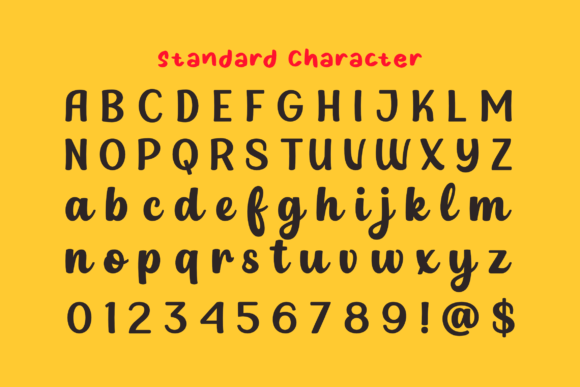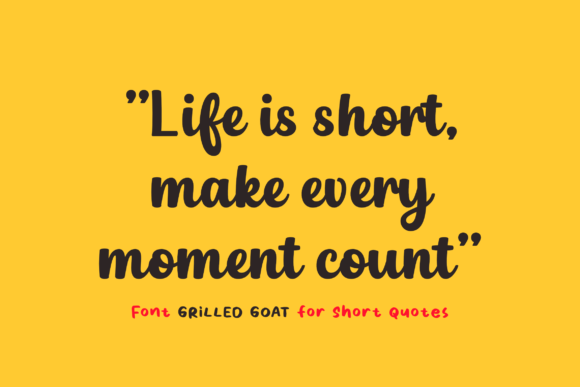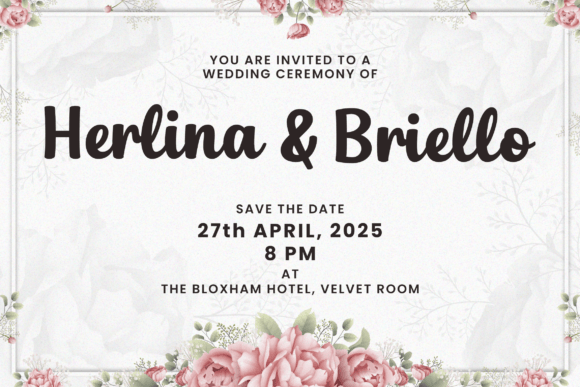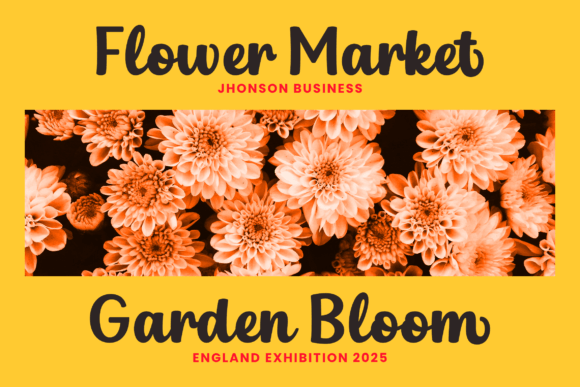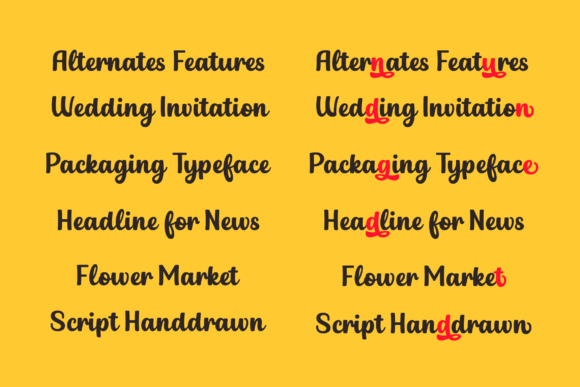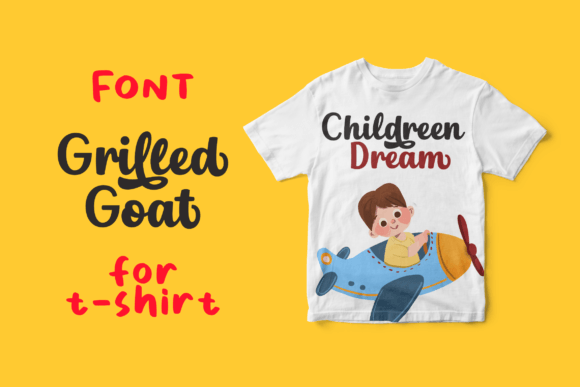
Introducing Grilled Goat: The Ultimate Script Font for Elegant Designs
In the world of typography, few fonts manage to capture the essence of charm and elegance as effortlessly as Grilled Goat. This stunning script font is a modern homage to the timeless art of classical calligraphy, offering a sophisticated and refined aesthetic that elevates any design project to new heights. Whether you’re a designer, crafter, or simply someone who appreciates the beauty of fine typography, Grilled Goat is sure to captivate and inspire.
The Art of Classical Calligraphy Reimagined
Grilled Goat is more than just a font – it’s a masterful blend of traditional calligraphy and modern design sensibilities. With its flowing lines, intricate details, and elegant flourishes, this script font brings a touch of luxury and sophistication to any design. From wedding invitations and bespoke stationery to logos, labels, and branding materials, Grilled Goat is the perfect choice for anyone seeking to add a dash of refinement and poise to their work.
One of the most exciting aspects of Grilled Goat is its versatility. This exceptional script font can be used in a wide range of design applications, including:
• Branding and Identity: Use Grilled Goat to create a lasting impression with your brand’s logo, business cards, and letterheads.
• Wedding and Event Design: Add a touch of romance and whimsy to your wedding invitations, programs, and decorations.
• Stationery and Packaging: Elevate your stationery, gift tags, and product packaging with Grilled Goat’s elegant script.
• Signage and Display: Make a statement with Grilled Goat’s bold and eye-catching lettering, perfect for signage, posters, and banners.
What Sets Grilled Goat Apart
So, what makes Grilled Goat stand out from the crowd? Here are just a few reasons why this script font is a cut above the rest:
• Unique Character: Grilled Goat boasts a distinct and recognizable character that sets it apart from more generic script fonts.
• Exceptional Legibility: Despite its ornate details, Grilled Goat remains surprisingly legible, making it perfect for both headlines and body text.
• Flexibility: With its wide range of applications and uses, Grilled Goat is an incredibly versatile font that can be used in various design contexts.
Tips for Getting the Most Out of Grilled Goat
To truly unlock the potential of Grilled Goat, here are a few expert tips to keep in mind:
• Experiment with Pairings: Combine Grilled Goat with complementary fonts to create visually striking contrast and hierarchy.
• Play with Size and Scale: Use Grilled Goat’s elegant script to create dramatic headlines or intimate, personal messages.
• Pay Attention to Details: Take advantage of Grilled Goat’s intricate details and flourishes to add texture and depth to your designs.
In conclusion, Grilled Goat is a script font like no other. With its winning blend of classic calligraphy and modern sophistication, this exceptional font is poised to become a staple in the world of design. Whether you’re a seasoned pro or just starting out, Grilled Goat invites you to elevate your designs, push the boundaries of creativity, and experience the art of typography in a whole new way.